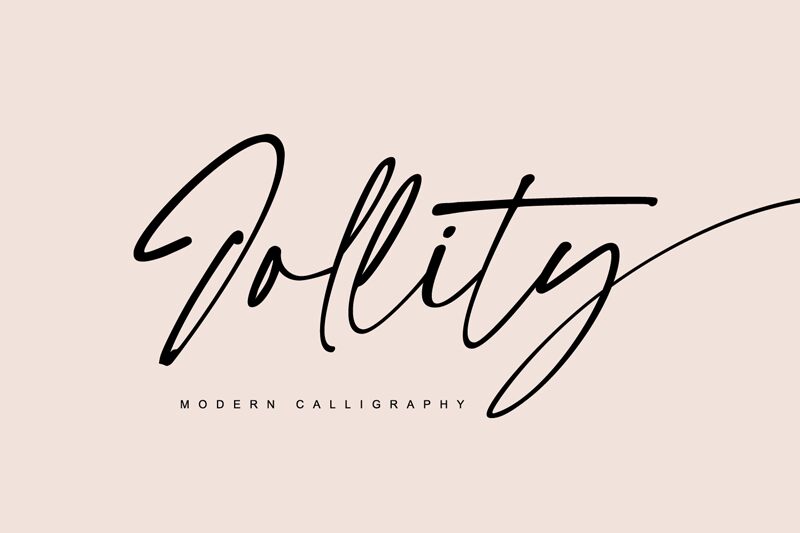
Jollity is a narrow, light signature script font designed by Farida Kurniawan. Perfect for creating a unique look, this font is ideal for branding projects, invitations, logos, and more.
Jollity